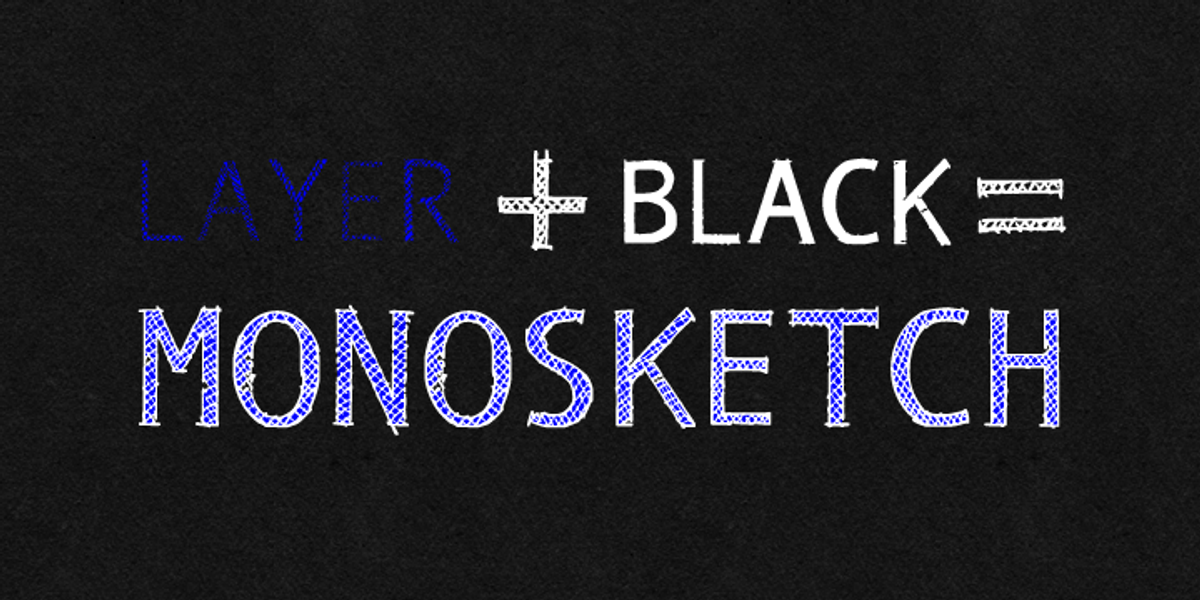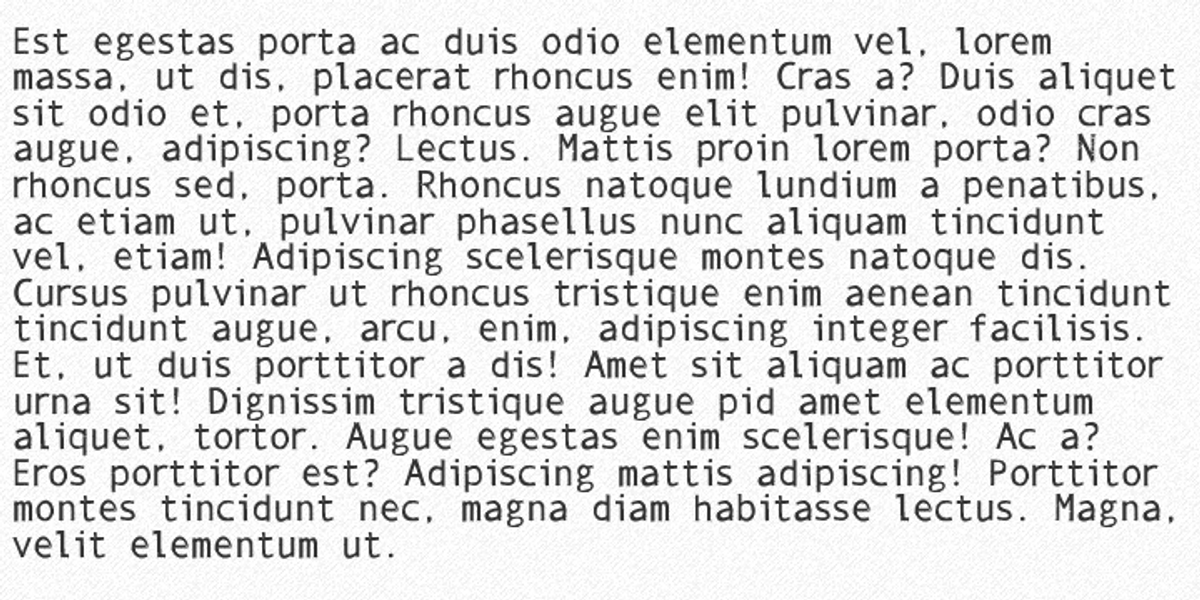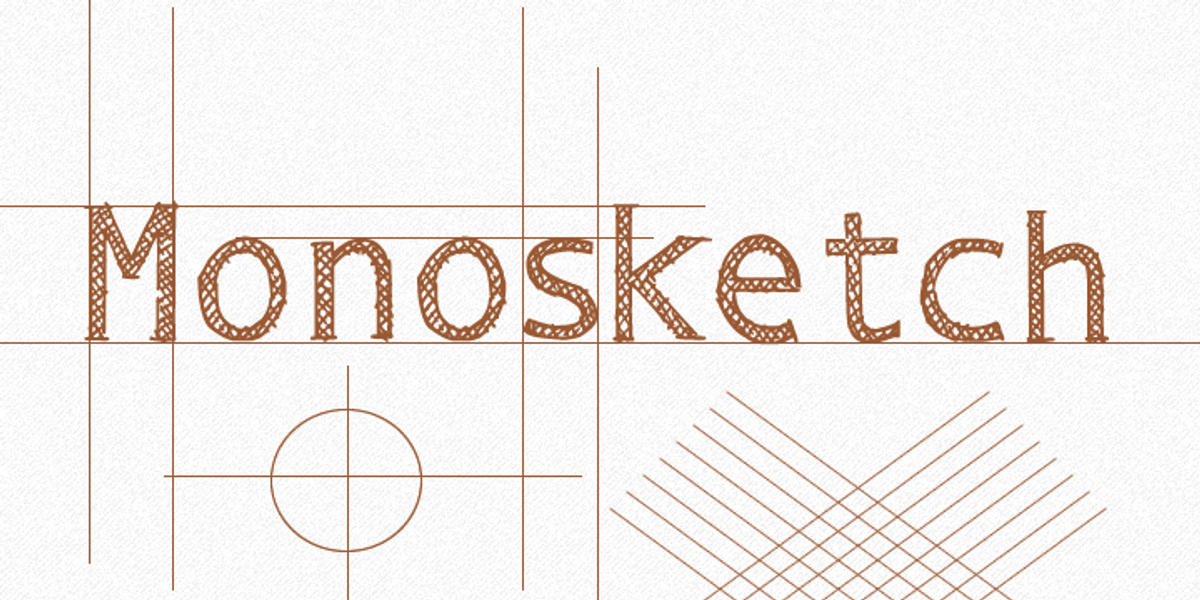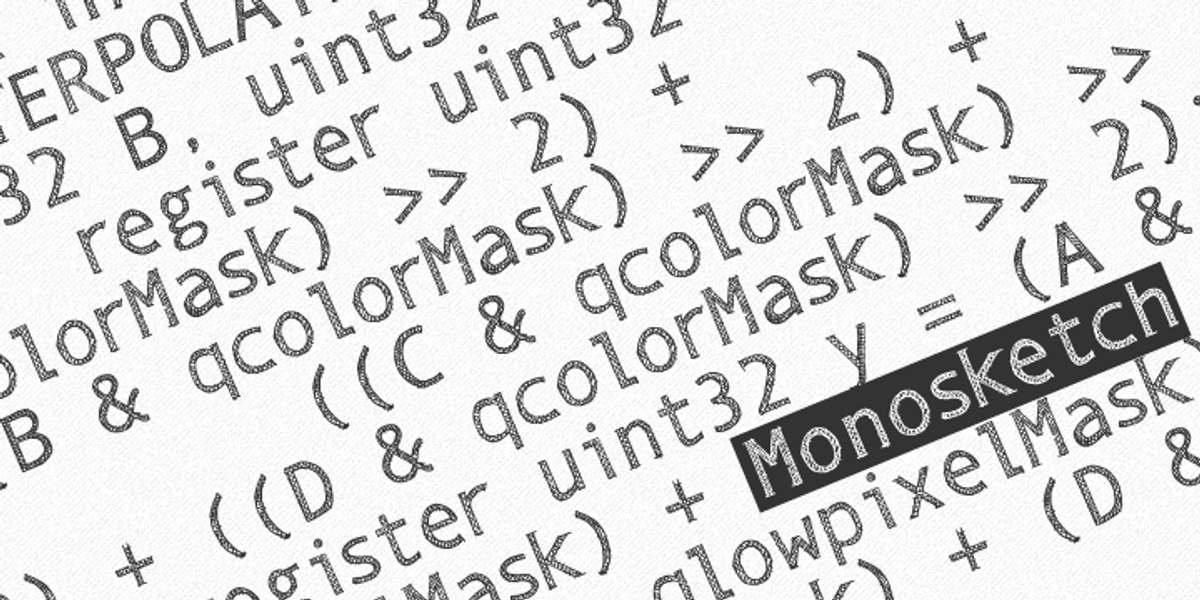
Monosketch
Monosketch is a unique hand-drawn display font inspired by the structure of monospaced fonts. Its design evokes a sketched aesthetic. It's offered in two styles: MonosketchLayer and MonosketchBlack, intended for layering to create visual depth. The font supports a wide range of languages including Western, Central and Eastern European, Baltic, and Turkish.